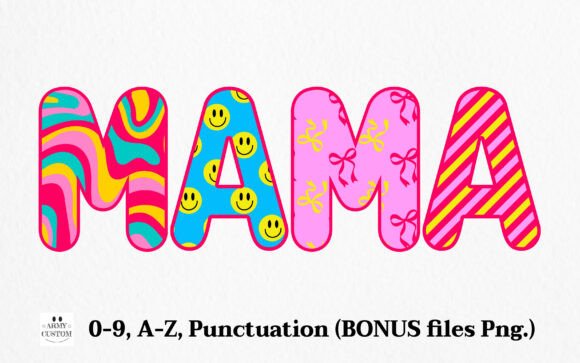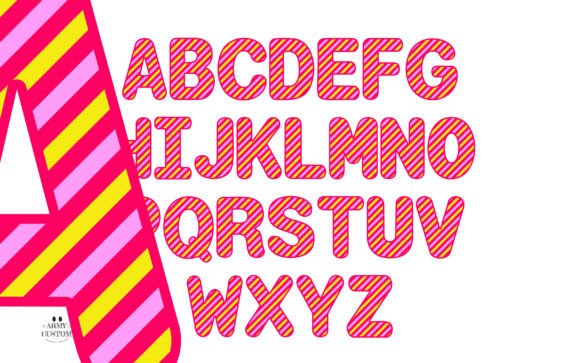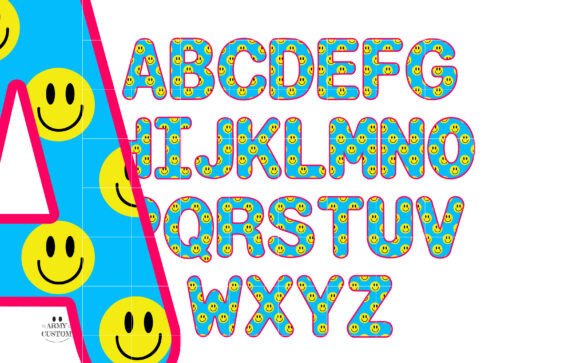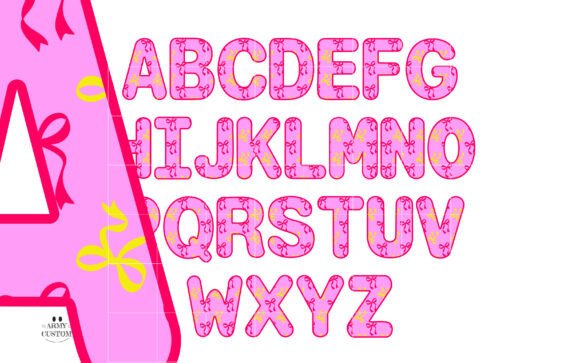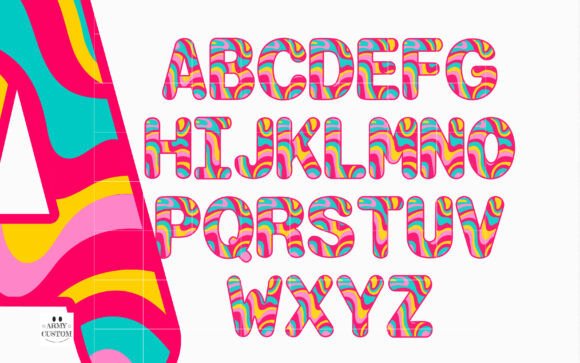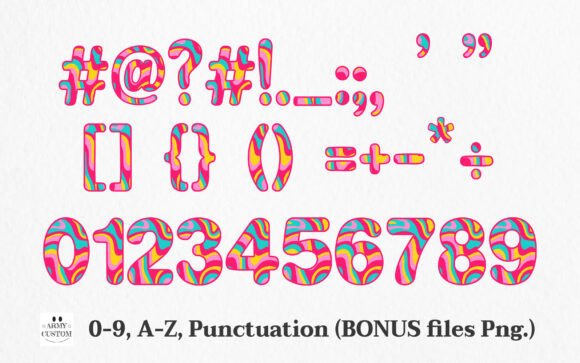
Introduction to Pop Bundle Font
As you scroll through your favorite design platforms, you stumble upon a project that sparks joy and creativity. You want to capture that feeling and infuse it into every word, every line, and every letter. That’s where the Pop Bundle Font comes in – a set of four dynamic, retro-style patterns that will breathe exuberance into your design projects. Perfectly crafted for sublimation tasks and digital scrapbooking ventures, this font bundle is a treasure trove of high-quality design resources.
With its eclectic mix of retro psychedelic waves, smiley faces, preppy bows, and bold stripes, the Pop Bundle Font is a visual explosion of patterns waiting to be unleashed. Designed for the bold at heart, this font is the ultimate tool for creating eye-catching nursery decor, festive party invitations, and standout apparel. Whether you’re a seasoned designer or a creative enthusiast, this font bundle promises to elevate your projects with a classic yet vibrant aesthetic.
Key Features of Pop Bundle Font
- High-quality, versatile font designed for creative projects, offering a unique and modern aesthetic.
- Designed with a focus on readability and versatility, making it an excellent choice for a wide range of creative projects.
Honest Review: Pop Bundle Font
As a designer, I’m always on the lookout for high-quality design resources that can elevate my creative projects. Recently, I had the chance to work with the Pop Bundle Font, and I’m excited to share my honest review.
What works well: ✨ The Pop Bundle Font is incredibly versatile, with a wide range of styles and weights that can be used for everything from logos to typography. The font is also super easy to use, with a transparent background that makes it a breeze to overlay on top of images or videos.
- High-quality design: The font is well-designed, with clean lines and a professional look that’s perfect for any creative project.
Any limitations: ⚠️ While the Pop Bundle Font is incredibly versatile, it’s not without its limitations. The font can be a bit too playful for some projects, and it may not be the best choice for more formal or corporate designs.
Overall, I’m really impressed with the Pop Bundle Font. It’s a fantastic design resource that’s perfect for creative projects, and it’s easy to see why it’s become so popular. If you’re looking for a high-quality font that’s easy to use and customize, the Pop Bundle Font is definitely worth checking out.
To get the most out of the Pop Bundle Font, experiment with different font sizes, colors, and styles to create visually appealing designs. You can also pair it with other design elements, such as graphics and images, to enhance your project.
The Pop Bundle Font is ideal for various creative projects, including social media graphics, blog posts, and marketing materials. It’s also perfect for designing presentations, reports, and other documents that require a professional touch.